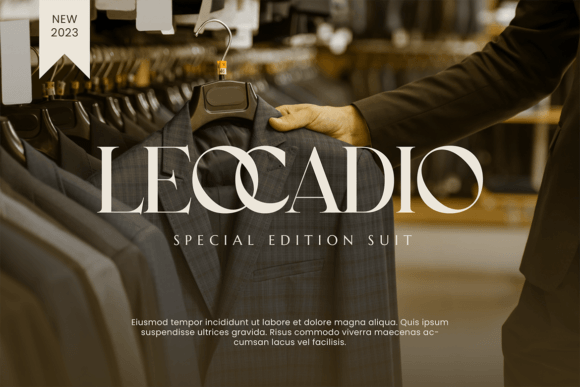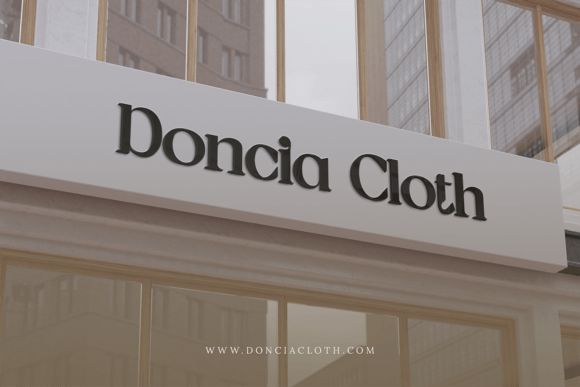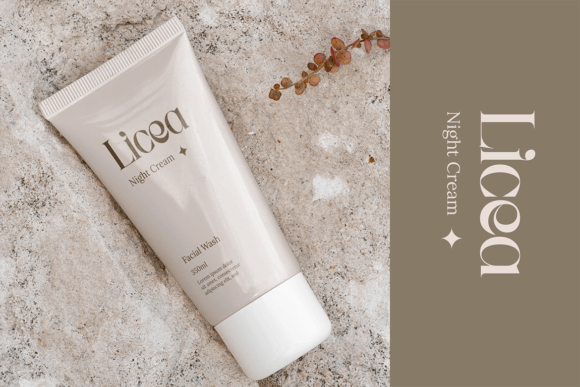
Introduction to Koolegant Font
As a designer, there’s nothing quite like the thrill of bringing a creative project to life. The click of the cursor, the swoosh of the pen, the perfect alignment of elements – it’s a symphony of visual harmony. But sometimes, that elusive ‘wow’ factor can be just out of reach. That’s where the Koolegant Font comes in – a stylish and modern elegant serif font that’s sure to elevate your designs to new heights.
Whether you’re crafting a brand identity, designing a wedding invitation, or creating social media posts, the Koolegant Font is the perfect addition to your design resource arsenal. Its PUA encoded nature means you can access all of the amazing glyphs and ligatures with ease, making it a high-quality addition to any project.
Key Features of Koolegant Font
- The Koolegant Font is a high-quality design resource ideal for creative projects, offering a unique and modern aesthetic.
- Koolegant Font is a multi-language font, supporting a wide range of languages, including English, Spanish, French, and many more.
- This font is perfect for use in logos, branding, and other creative projects where a modern and sleek design is required.
Honest Review: Koolegant Font
I recently came across the Koolegant Font while searching for a high-quality font to use in my creative project. After using it for a while, I thought it was time to share my honest opinion with fellow designers.
What works well: ✨ The Koolegant Font has a unique, modern style that’s perfect for creating visually appealing designs. The font is highly legible, making it suitable for body text as well as headings. I also appreciate the fact that it’s a free download, which is always a bonus for designers on a budget.
What doesn’t work so well: ⚠️ One of the limitations of the Koolegant Font is that it doesn’t have a transparent background option. This can be a problem if you’re working on a design that requires a lot of layering or transparency. Additionally, the font family is quite limited, so you may find yourself using the same styles over and over.
Overall, I’m impressed with the Koolegant Font as a design resource. While it may not be perfect, it’s a great addition to any designer’s toolbox. If you’re looking for a free, high-quality font for your creative project, I’d definitely recommend giving it a try.
- Unique, modern style
- Highly legible
The Koolegant Font is perfect for creating eye-catching social media graphics, presentations, and documents. Its unique design and transparent background make it ideal for layered designs and creative projects.